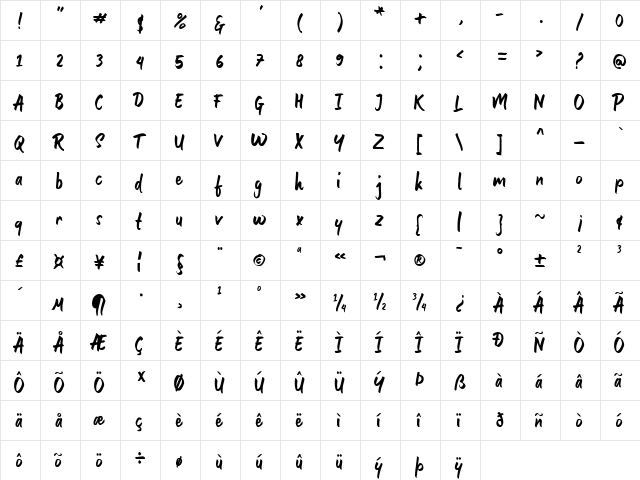
Gultan Bonte Regular
| Designer | Ali Hamidi |
Design Context for Gultan Bonte Typeface
Gultan Bonte is a composed and adaptable typeface that performs quietly and consistently across a wide range of design contexts.